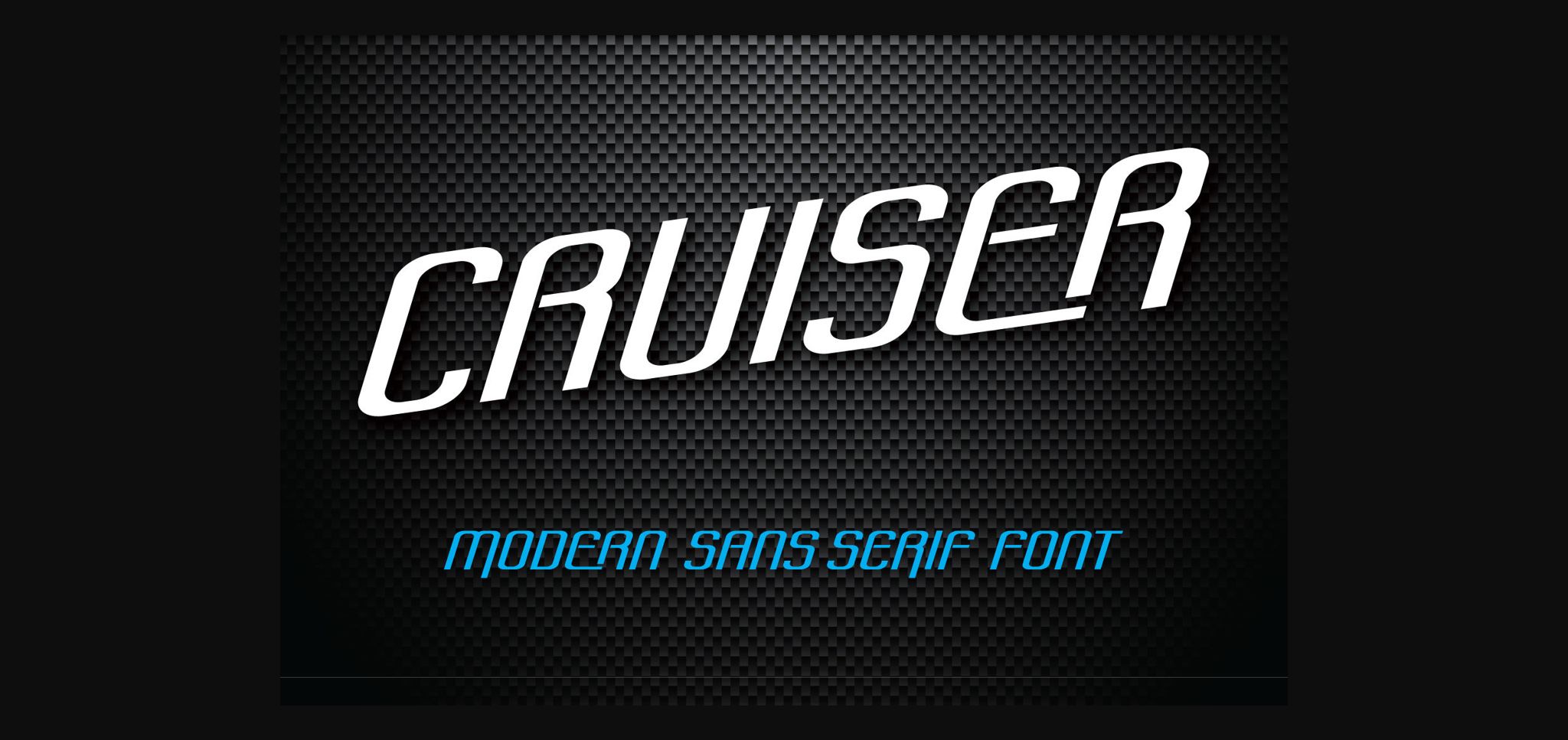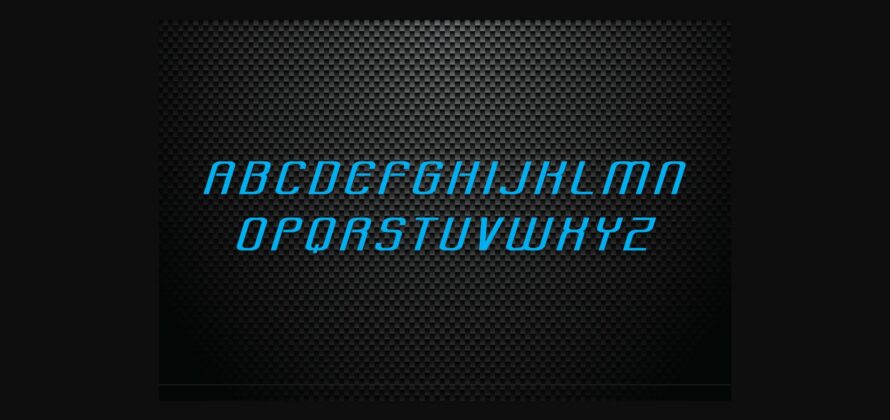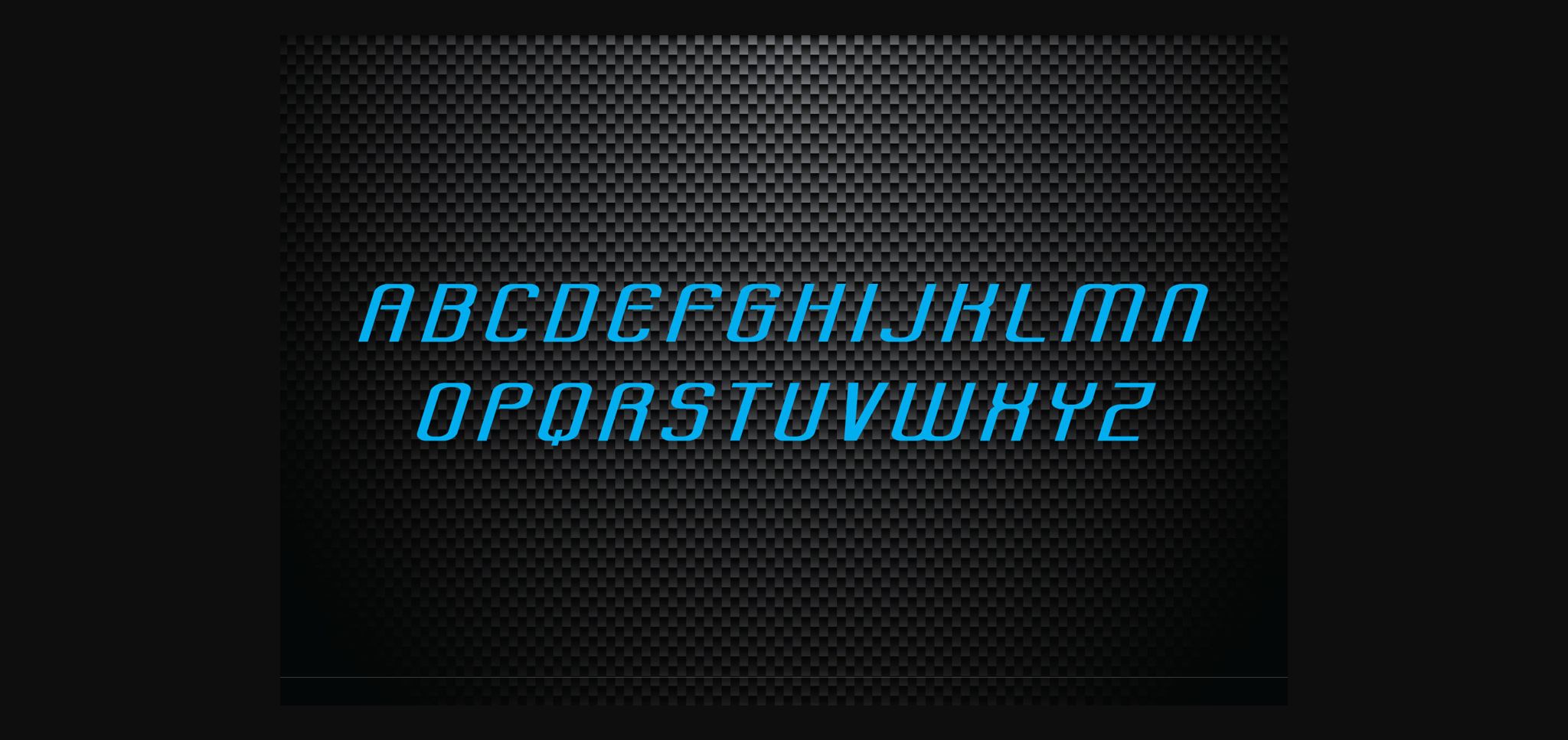
About Cruiser Font
Cruiser is a great modern sans-serif logo font that is excellent for sports and racing. Add it to your creative projects and you will be impressed by the generated outcome! Add Cruiser to your font library and get cruisin’!